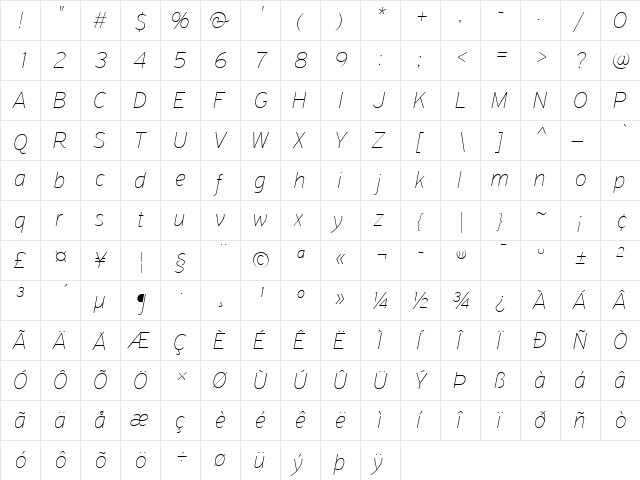
PF Highway Sans Pro Extra Thin Italic
| Foundry | Parachute蠗orldwide |
| Designer | Panos Vassiliou |
Design Context for PF Highway Sans Pro Typeface
PF Highway Sans Pro offers clean, dependable letterforms without strong stylistic allegiance, making it a practical choice for designers who need flexibility. The dynamic lean of this cut emphasises speed and emphasis in any layout. The delicate stroke weight brings airiness and refinement to layouts.